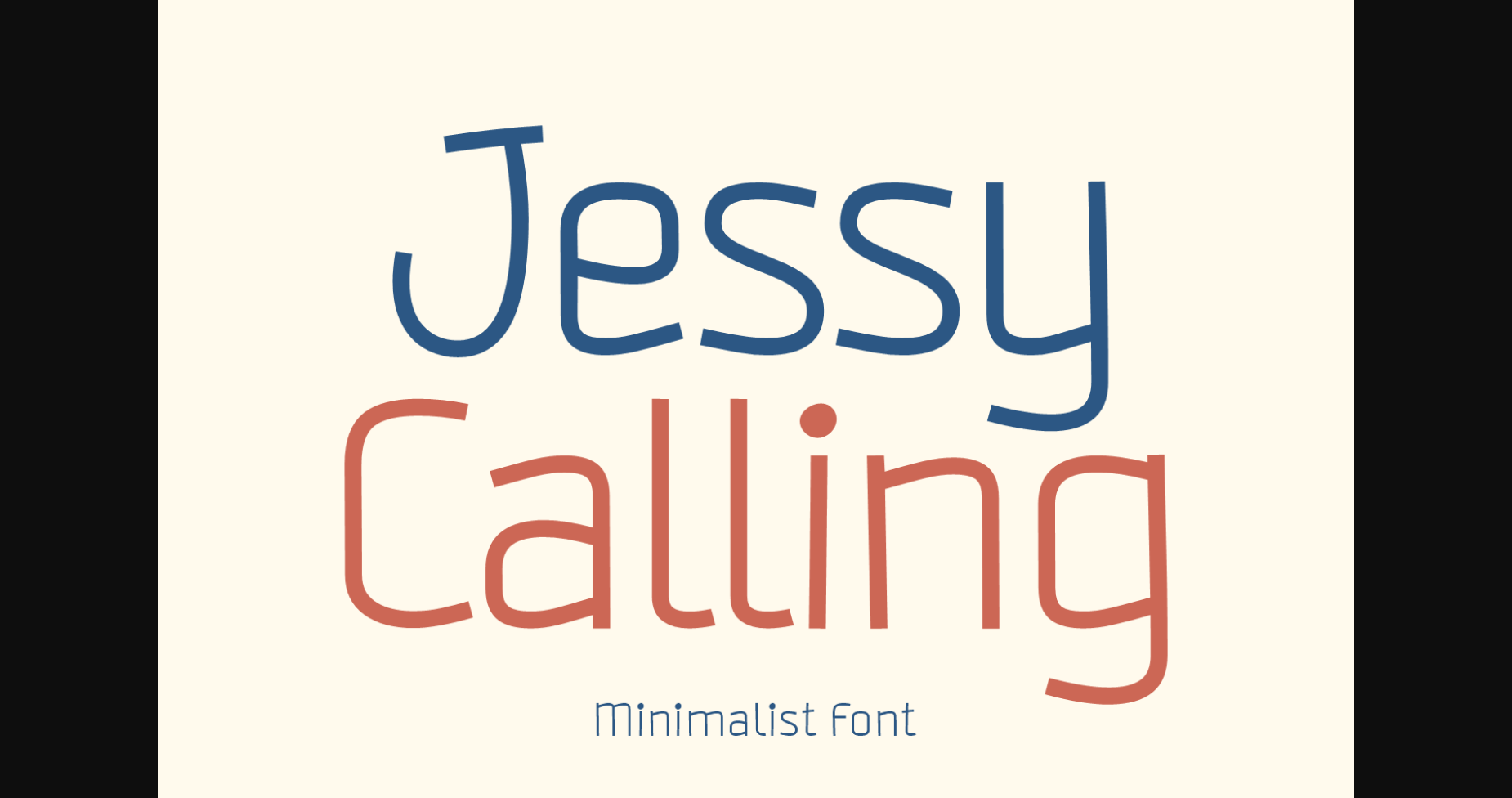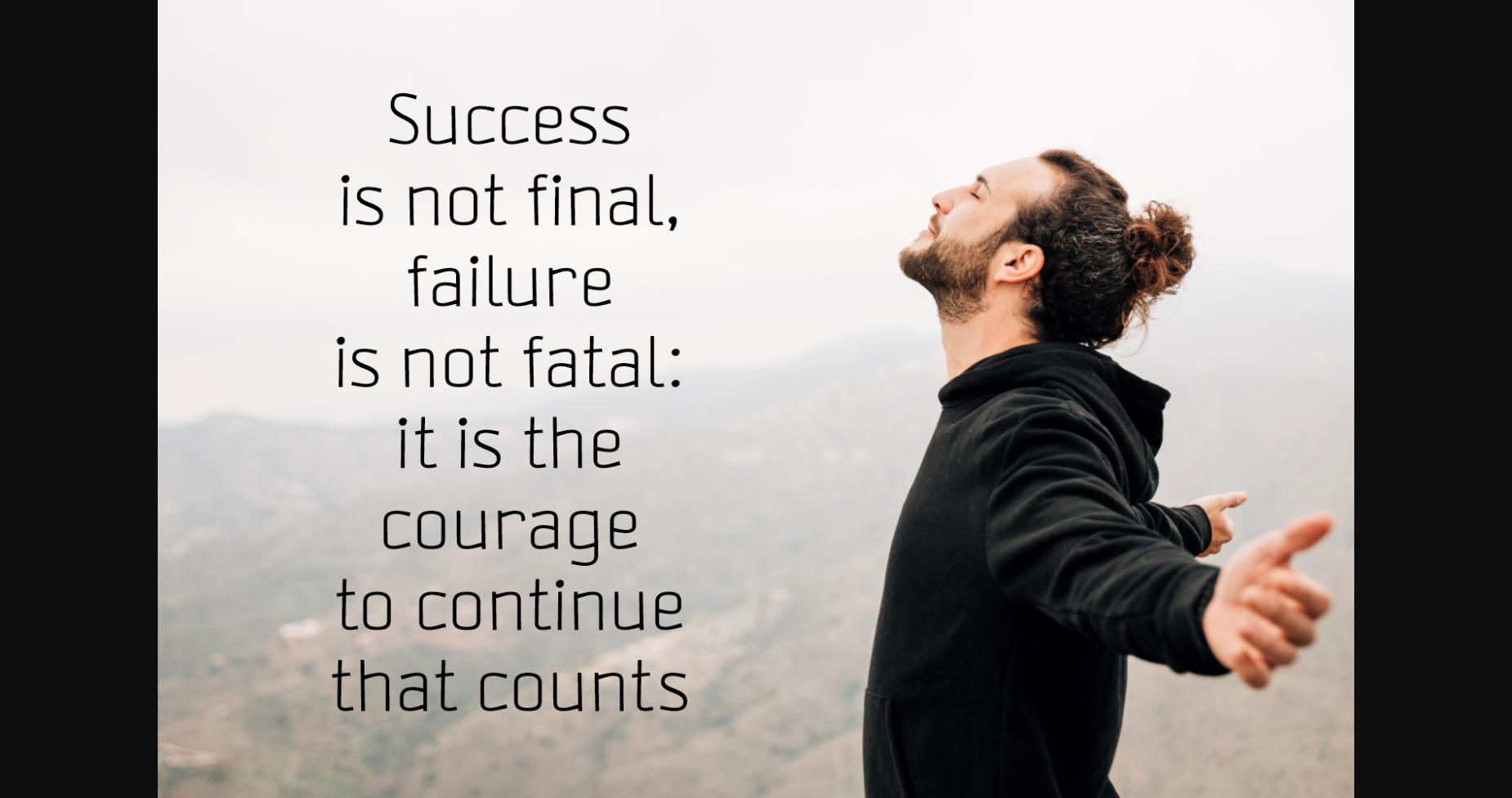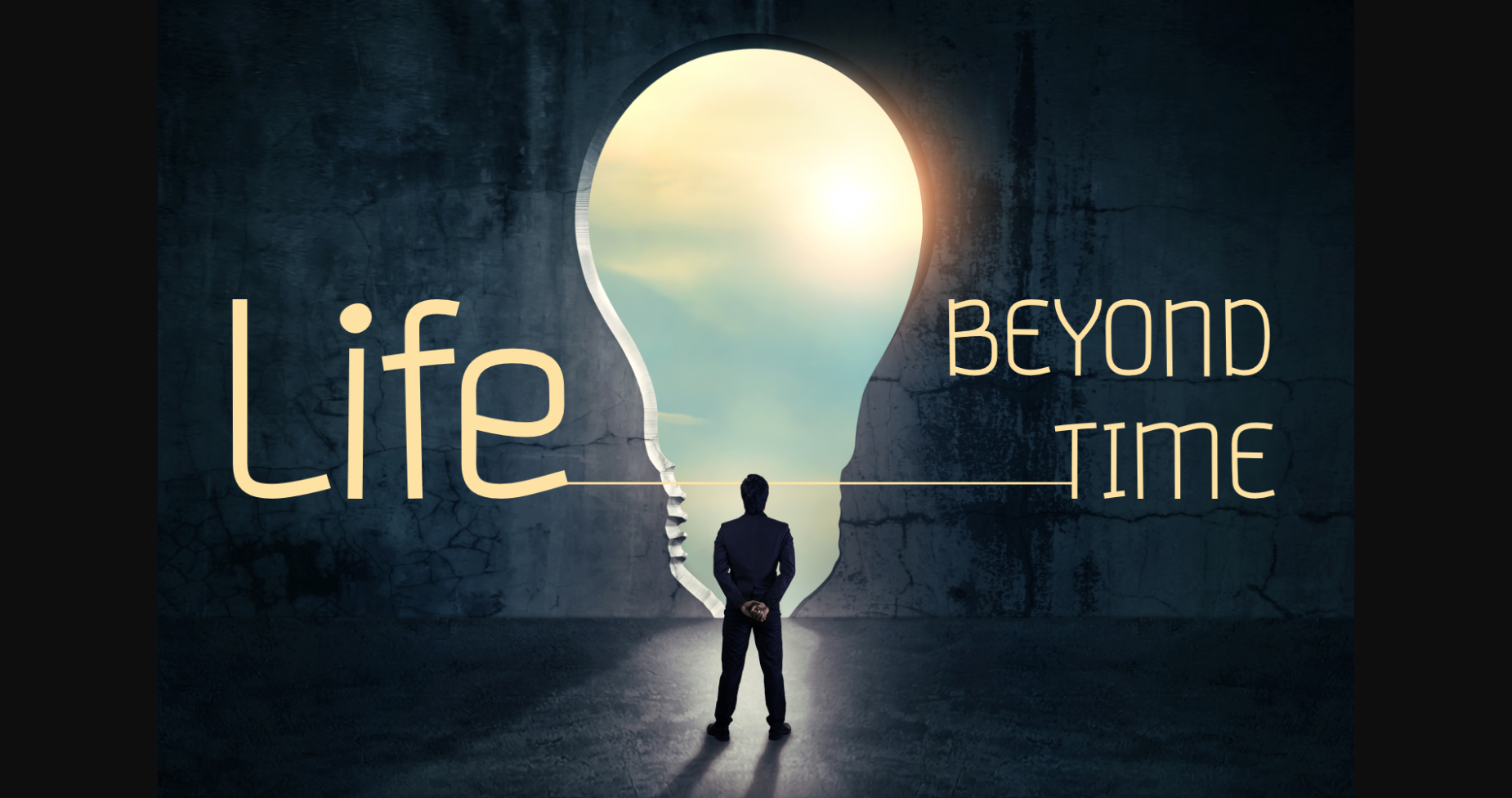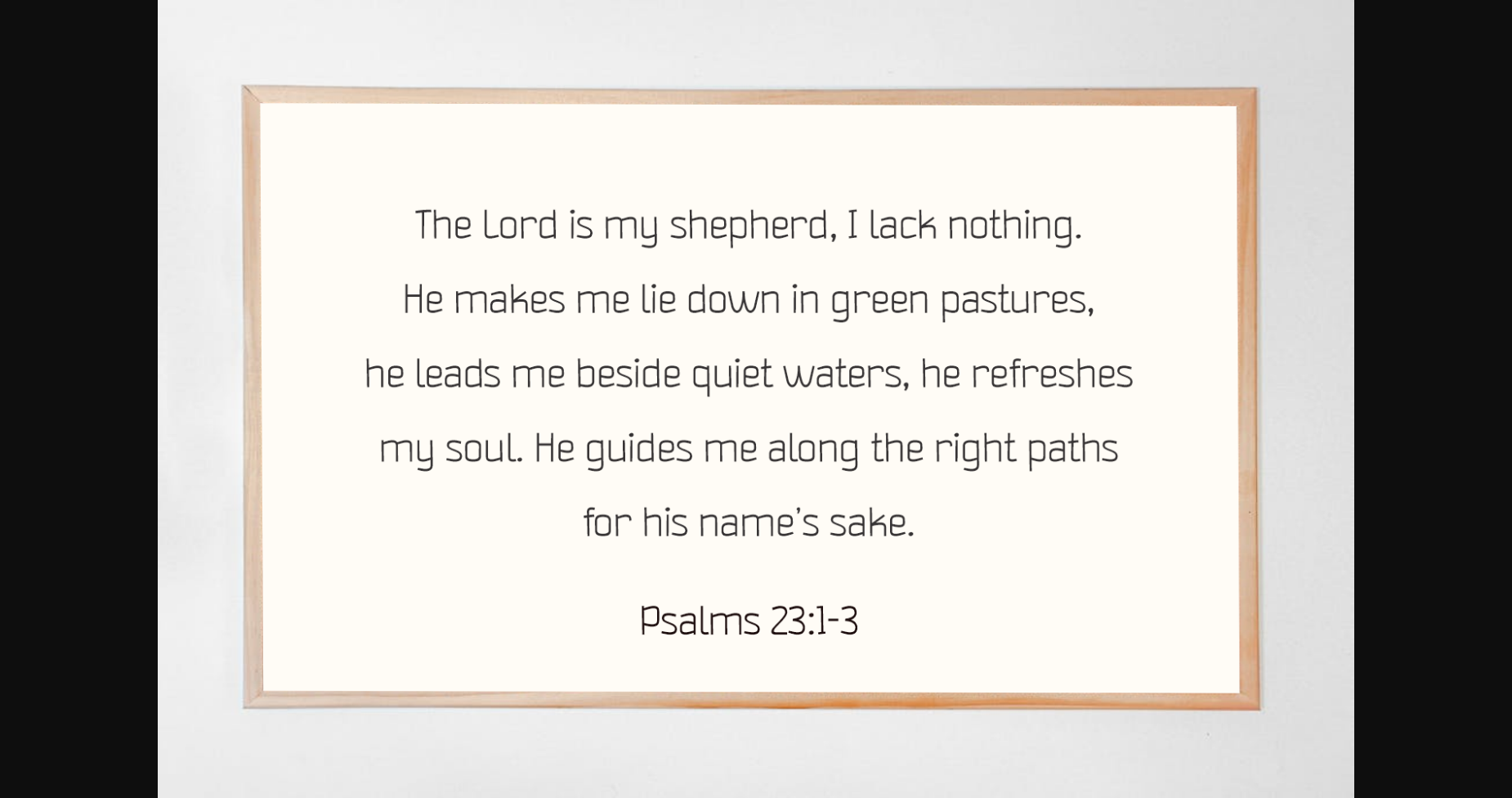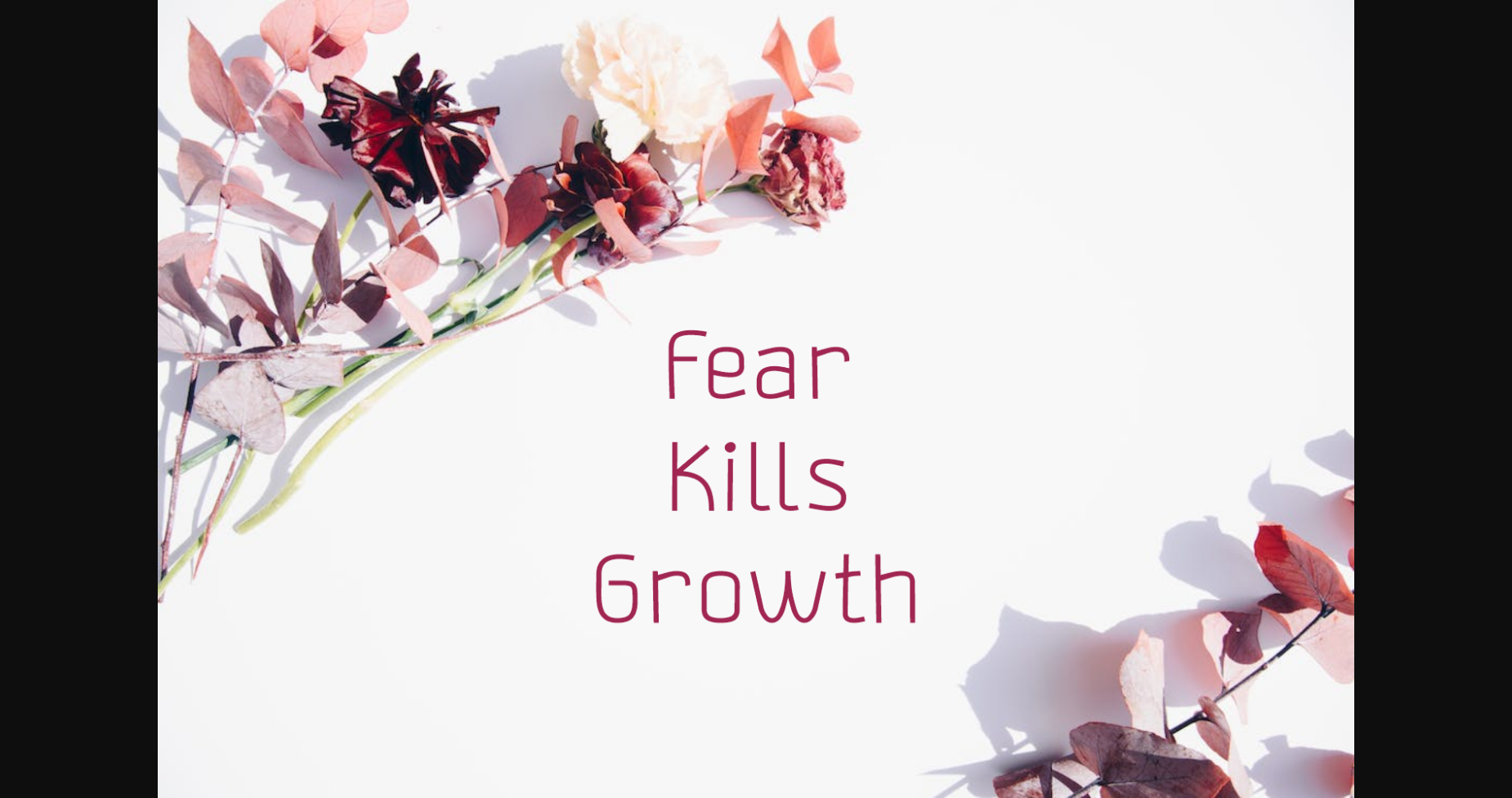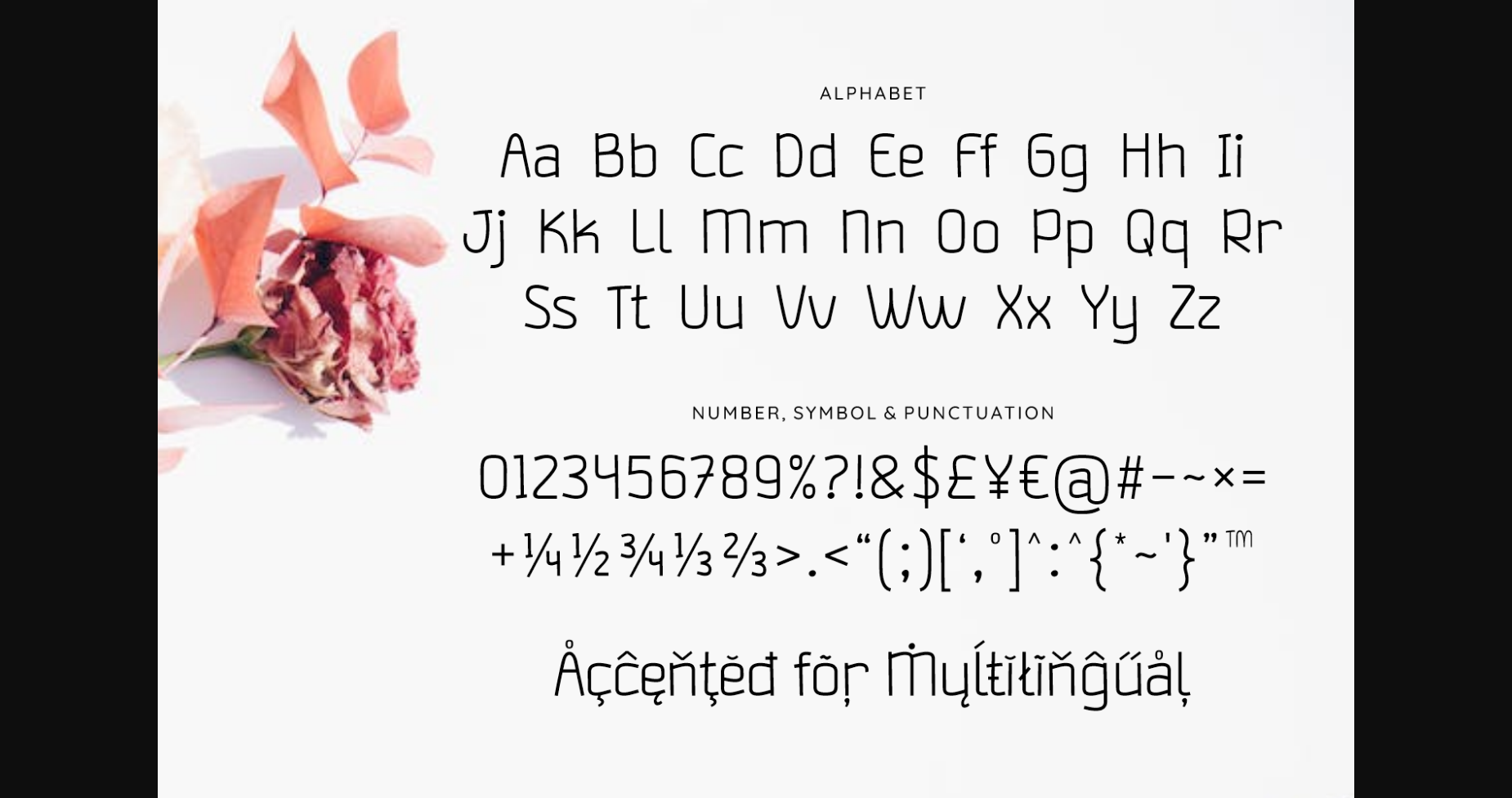
HomeSans Serif FontsJessy Calling Font Sans Serif Fonts Jessy Calling Font FacebookXPinterestWhatsApp 1 of 8 ... Jessy Calling Font Poster 2... Jessy Calling Font Poster 3... Jessy Calling Font Poster 4... Jessy Calling Font Poster 5... Jessy Calling Font Poster 6... Jessy Calling Font Poster 7... Jessy Calling Font Poster 8... About Jessy Calling Font Jessy Calling is a minimalist and versatile sans serif font. Simple yet stylish, this modern font is suitable for various design projects. You can use it for business cards, websites, quotes, product packaging, and more. DOWNLOAD NOW People also explored Baby Garden Font Mayhell Font Entwisted Font Christmas Worship Font Bernadette Font Emblema Samarra Font Mounlee Font Blue Season Font 382 0 TagsJessy Calling Font Previous articleAsiatiyca FontNext articleBosh Uniqurs Font LEAVE A REPLY Cancel reply Comment: Please enter your comment! Name:* Please enter your name here Email:* You have entered an incorrect email address! Please enter your email address here Website: Save my name, email, and website in this browser for the next time I comment. Personal Use Free Wallabys Junior Personal Use Free Read more about this font Expaing Personal Use Free Read more about this font Airmole Personal Use Free Read more about this font Spaghetti Personal Use Free Read more about this font BLOG Free Fonts Risk: Why Free Fonts Can Be Dangerous for Designers Free Fonts Risk: Why Free Fonts Can Be Dangerous for Designers Using free fonts is a common practice in web and graphic design. However, the... Top 10 Handwritten Fonts That Elevate Your Designs To increase your work productivity, choose the most readable fonts. Best Fonts for YouTube Videos: Make Your Thumbnails Stand Out